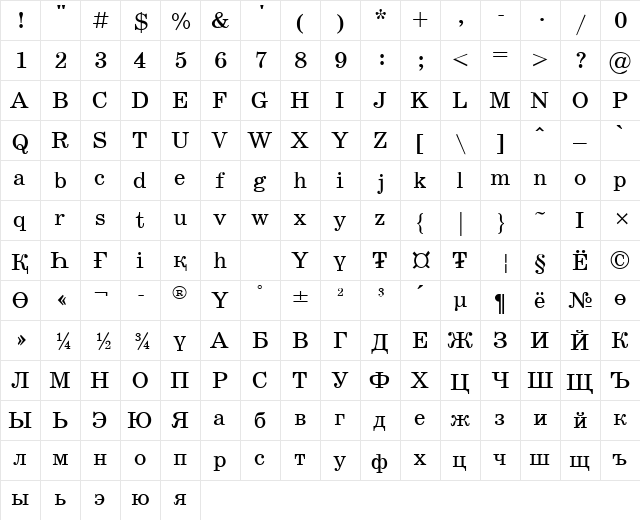
Dutch Mon Regular Font Preview
Dutch Mon Regular
Design Context for Dutch Mon Typeface
Dutch Mon is a composed and adaptable typeface that performs quietly and consistently across a wide range of design contexts.